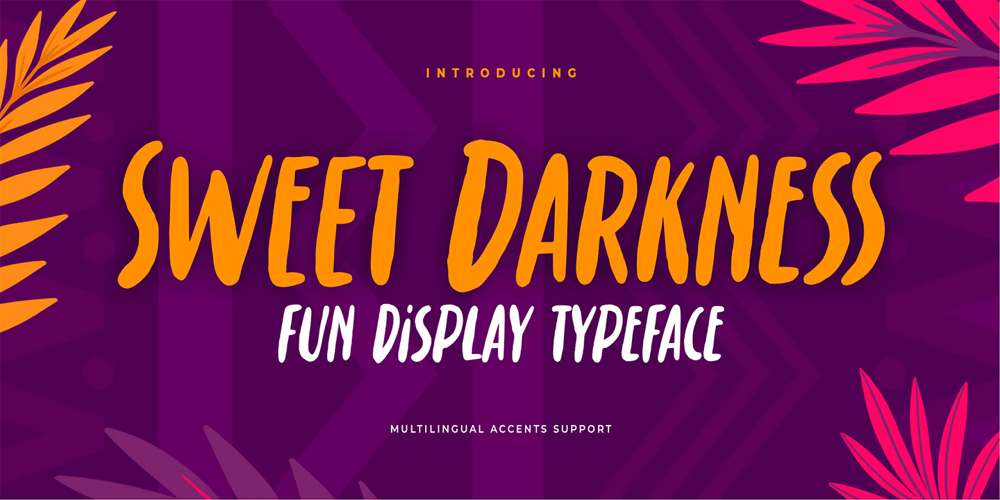
Sweet Darkness Font Family was designed by Abdul Malik Wisnu, Anang Fibriyanto and published by Gassstype. Sweet Darkness contains 1 styles and family package options. Hello Everyone, introduce our new product Font Sweet Darkness is a Fun Display Typeface .This is a Textured Natural Style and classy style with a clear style and dramatic movement.This font Sweet Darkness is great for your next creative project such as logos, printed quotes, invitations, cards, product packaging, headers, Logotype, Letterhead, Poster, Design this font is great for your creative projects such as watermark on photography, and perfect for logos & branding, invitation,advertisements,product designs, stationery, wedding designs,label ,product packaging, special events or anything that need handwritting taste.You can activate Ligatures glyphs and Alternates glyphs OpenType panel.